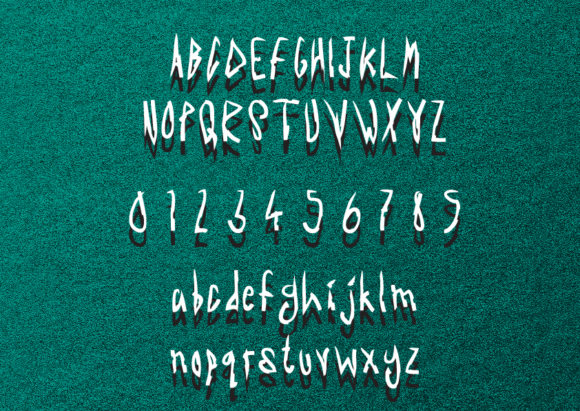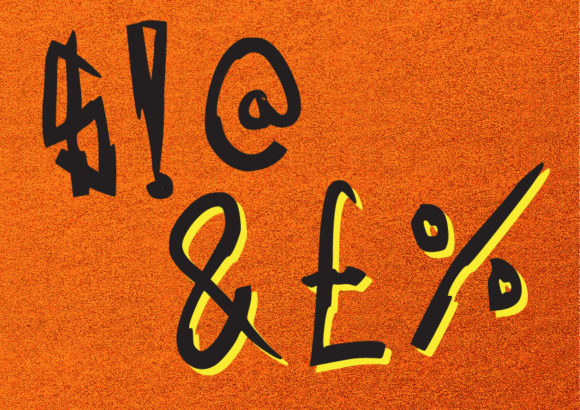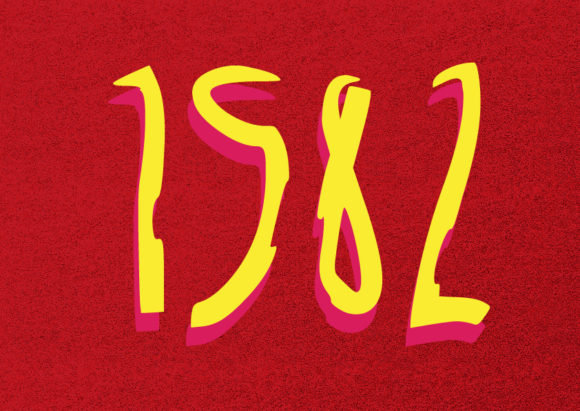
Discover the Bold and Quirky World of Acid Radio Font
Are you ready to add a dash of excitement and experimentation to your design projects? Look no further than the Acid Radio Font, a jarring and playful display font that’s sure to turn heads. With its unique style and bold aesthetic, Acid Radio is the perfect choice for designers and crafters looking to make a statement.
The Inspiration Behind Acid Radio
Acid Radio Font draws inspiration from the experimental and avant-garde world of radio broadcasting. Its quirky and offbeat design is reminiscent of the eclectic and often irreverent style of underground radio stations, where creativity and self-expression know no bounds. Whether you’re a graphic designer, a crafty DIY enthusiast, or simply someone who appreciates bold and innovative design, Acid Radio is sure to spark your creativity.
Key Features of Acid Radio Font
- Unique and Experimental Style: Acid Radio Font boasts a truly one-of-a-kind design that’s sure to stand out in any project.
- Jarring and Playful: This font is not for the faint of heart! Acid Radio is bold, daring, and unapologetic, making it perfect for designs that demand attention.
- Display Font: Acid Radio is optimized for display use, making it ideal for headlines, titles, and other prominent design elements.
- Highly Versatile: Whether you’re working on a digital project or a print design, Acid Radio Font can be used in a variety of contexts to add a touch of personality and flair.
Using Acid Radio Font in Your Designs
So, how can you incorporate Acid Radio Font into your designs? Here are a few ideas to get you started:
- Headlines and Titles: Use Acid Radio Font to create bold and eye-catching headlines that demand attention.
- Logos and Branding: Add a touch of personality and whimsy to your logos and branding with Acid Radio Font.
- Posters and Flyers: Create striking posters and flyers that showcase your creative vision with Acid Radio Font.
- Digital Graphics: Use Acid Radio Font to add a bold and playful touch to your digital graphics, from social media posts to website headers.
Tips and Tricks for Working with Acid Radio Font
To get the most out of Acid Radio Font, here are a few tips and tricks to keep in mind:
- Experiment with Color: Acid Radio Font looks great in bold and bright colors, so don’t be afraid to get creative with your color palette.
- Play with Texture: Add an extra layer of depth and interest to your designs by combining Acid Radio Font with different textures and patterns.
- Mix and Match: Don’t be afraid to pair Acid Radio Font with other fonts and design elements to create a unique and visually appealing design.
In conclusion, Acid Radio Font is a bold and playful display font that’s sure to add a touch of excitement and experimentation to your design projects. With its unique style, jarring and playful aesthetic, and high versatility, Acid Radio is the perfect choice for designers and crafters looking to make a statement. So why wait? Download Acid Radio Font today and start creating designs that are truly one-of-a-kind!